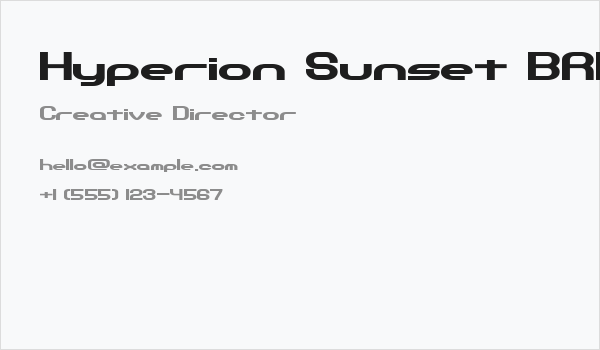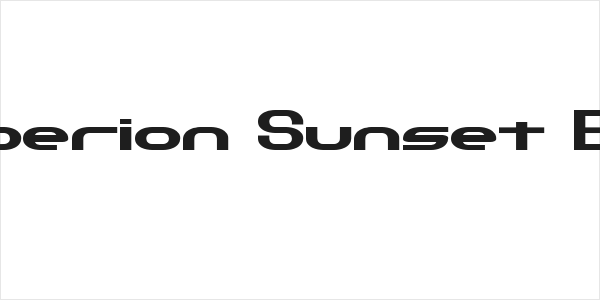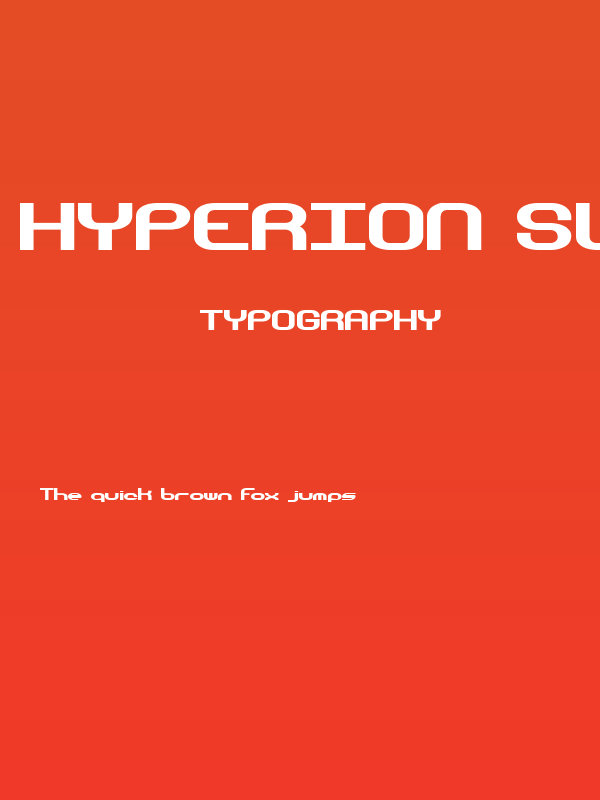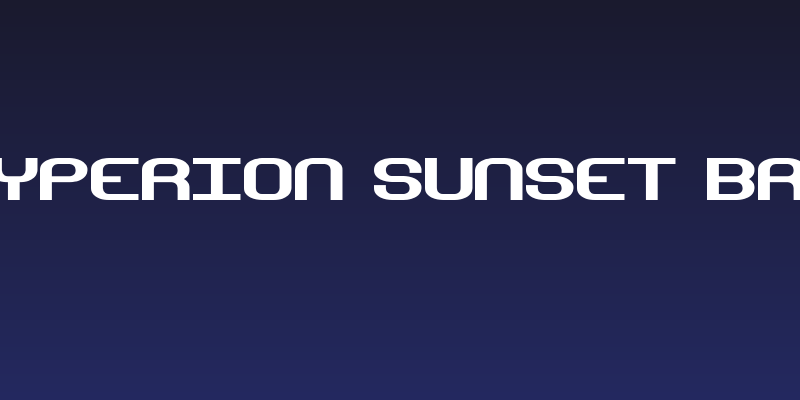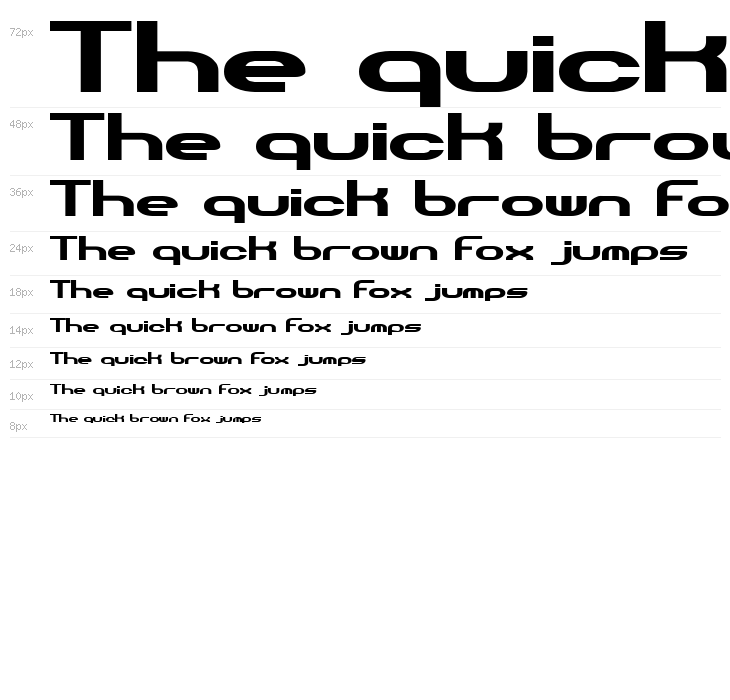
Hyperion Sunset BRK Font
Hyperion Sunset BRK Description
This font features a futuristic and geometric design with bold, angular lines and a distinctively modern aesthetic. The uppercase letters are characterized by their blocky, squared-off shapes, while the lowercase letters maintain a similar style with slightly more rounded edges. The numerals and special characters follow the same design principles, offering a cohesive look across all characters. The font's unique style makes it stand out, with a strong emphasis on horizontal and vertical strokes, creating a sense of stability and strength.